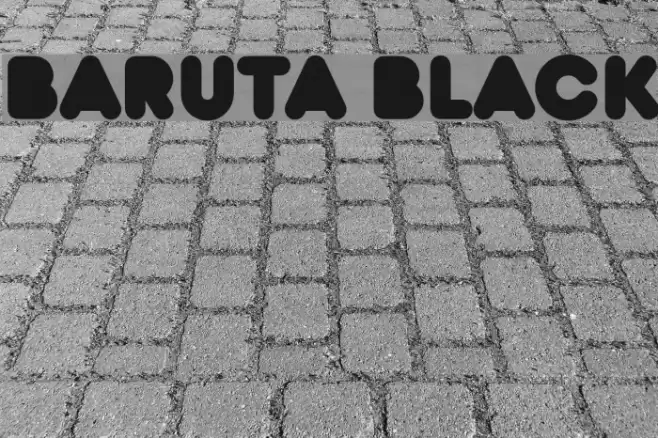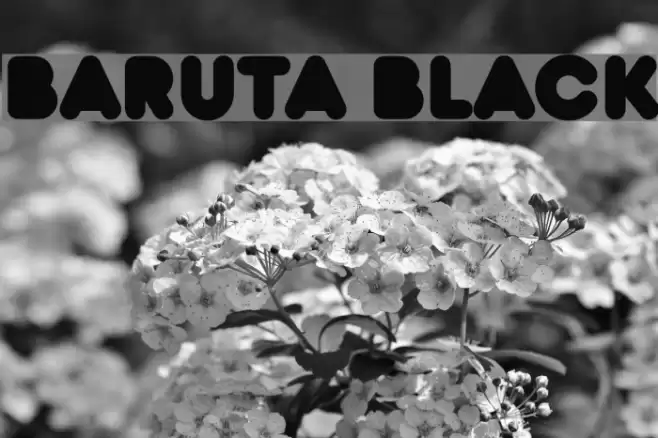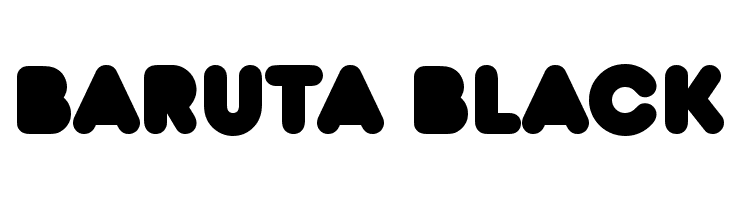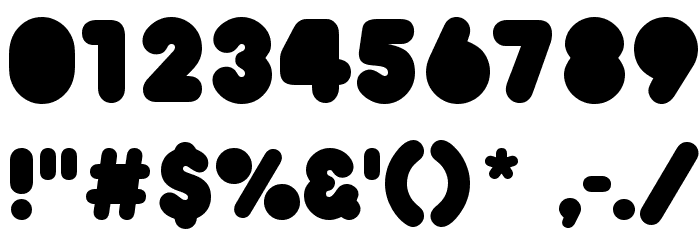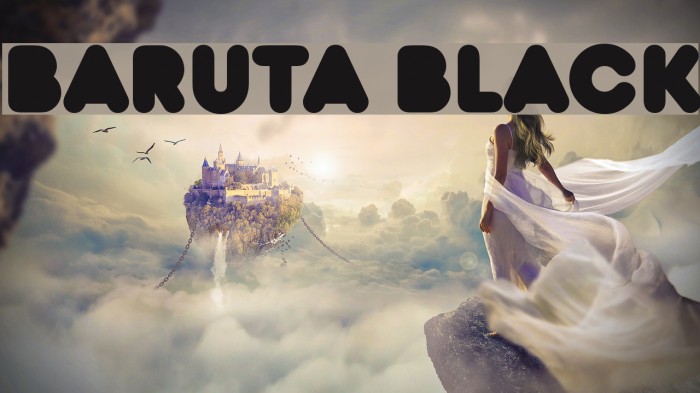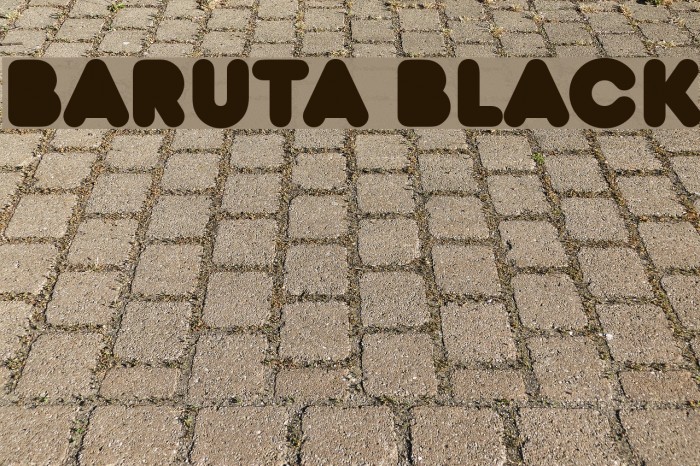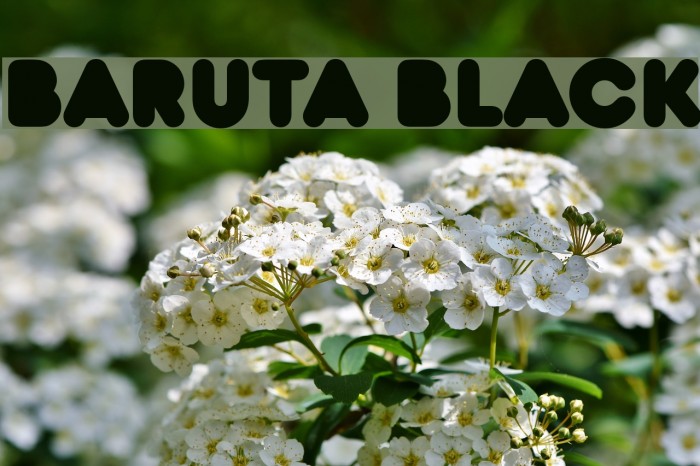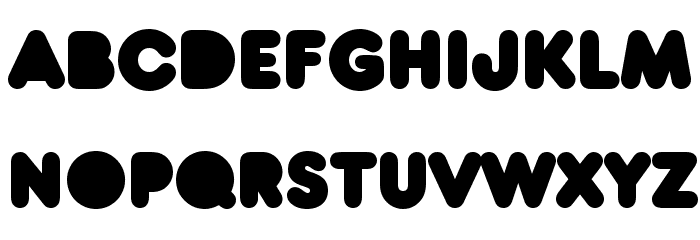
Baruta Black
This font features bold, rounded characters with a playful and friendly appearance. The letters are uniformly thick, giving them a strong presence on the page. The rounded edges and lack of sharp angles contribute to a soft, approachable feel. The font is highly legible, even at smaller sizes, making it versatile for various design applications. Its boldness ensures that it stands out, making it ideal for attention-grabbing headlines or titles. The consistent stroke width across all characters provides a cohesive look, while the rounded forms add a touch of whimsy and fun.
A bold, rounded font with a playful and friendly appearance.
- Proposed Projects: Ideal for children's books, playful branding, posters, and eye-catching headlines.
- Overall Style: Playful, Modern
- Use Case: Headlines, Logos, Posters